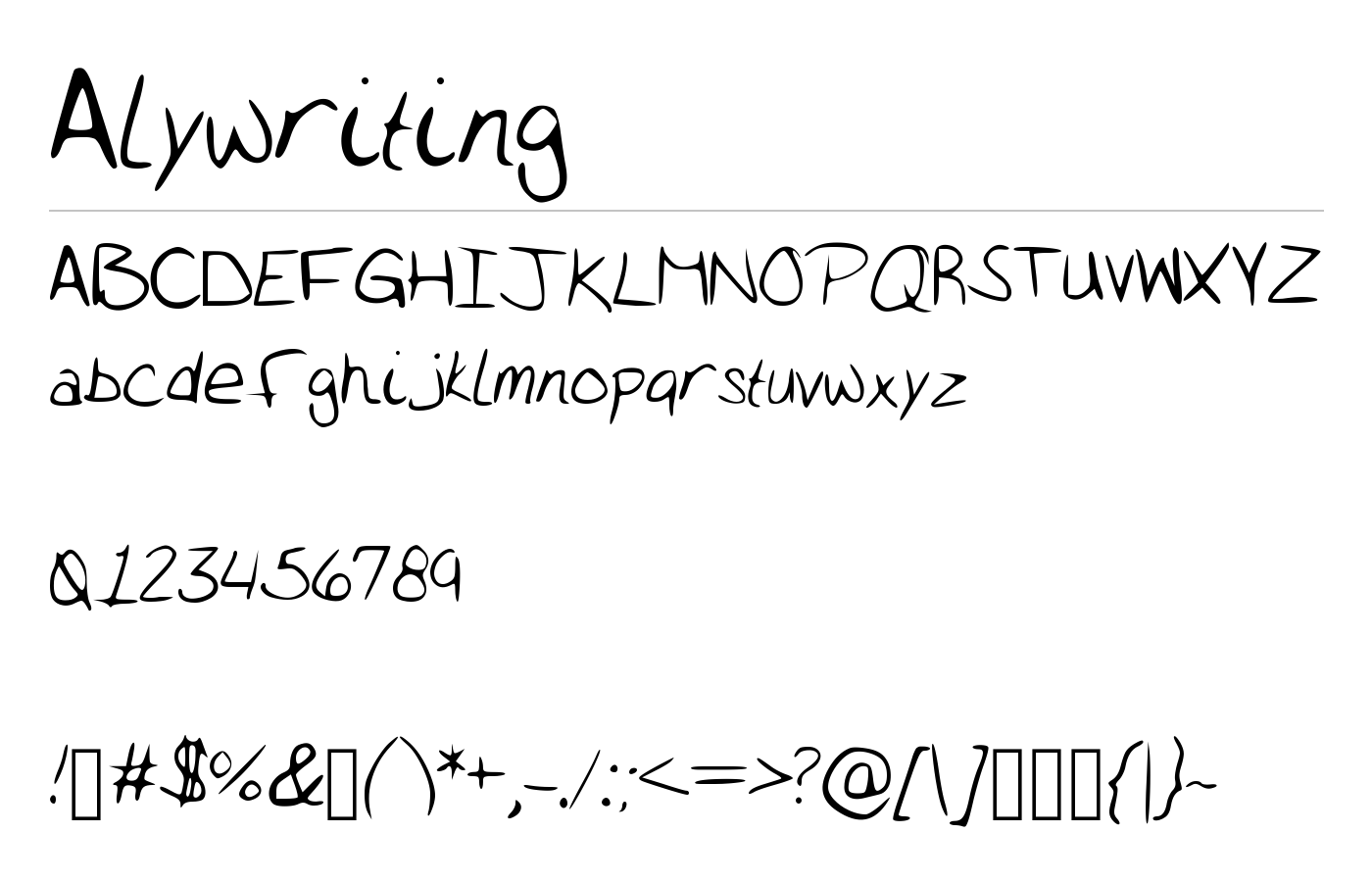
Alywriting is a playful and casual handwritten font that mimics natural pen strokes with its irregular, slightly quirky letterforms. Its light weight and loose spacing give it an airy, approachable feel, making it ideal for creative projects, informal branding, or personal notes where a friendly, human touch is desired. This font works well in headlines, invitations, and any design seeking an organic, whimsical aesthetic.
Alywriting Font